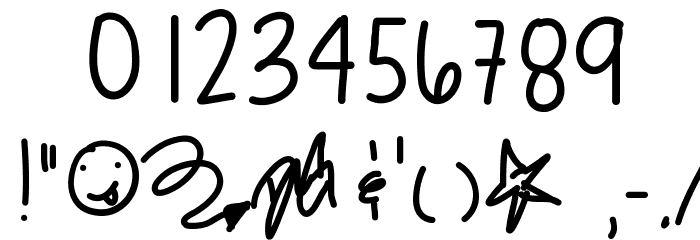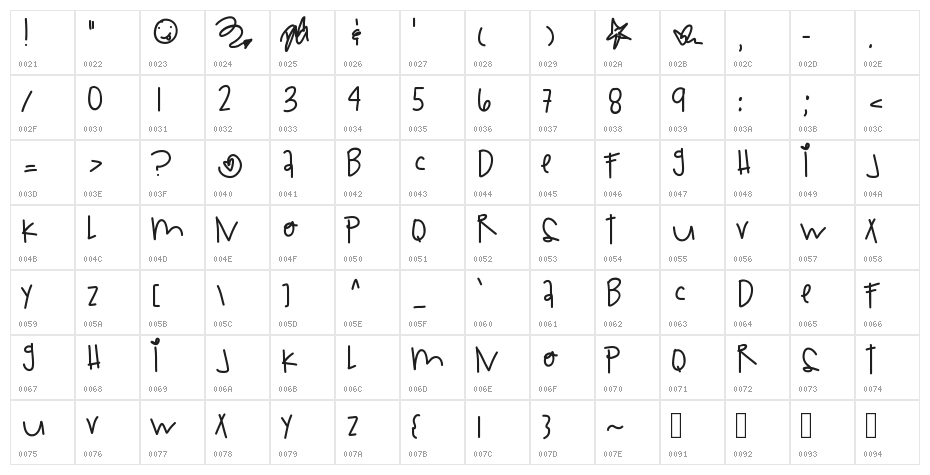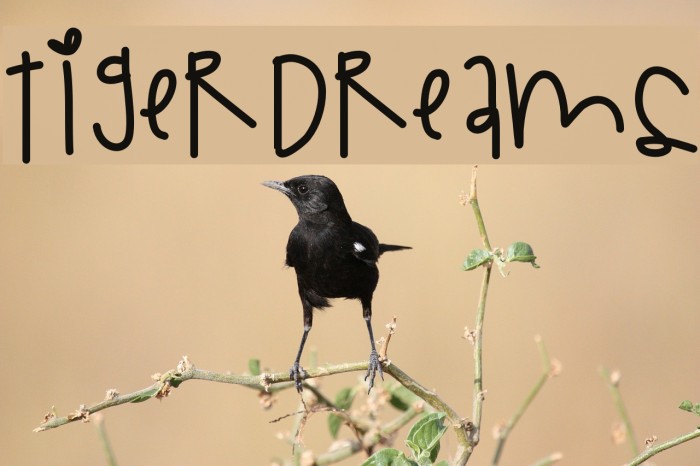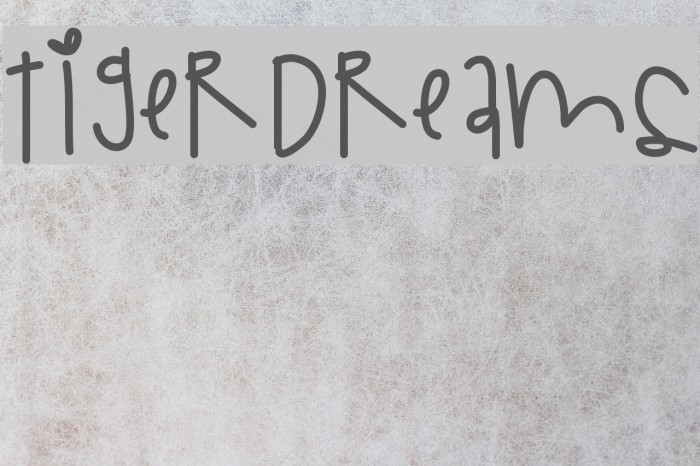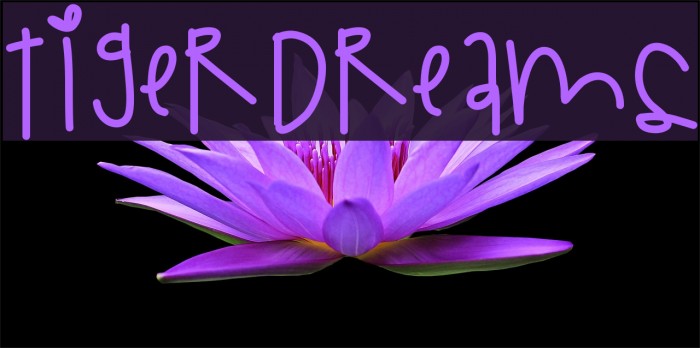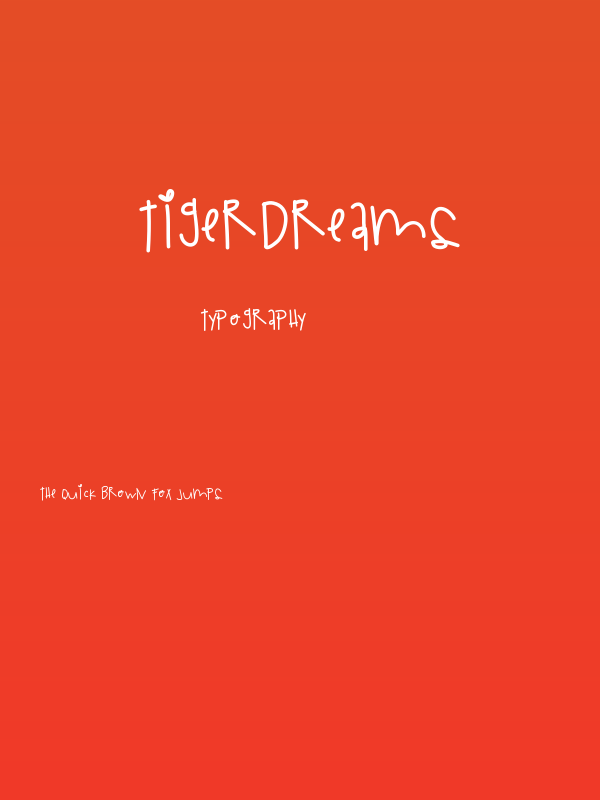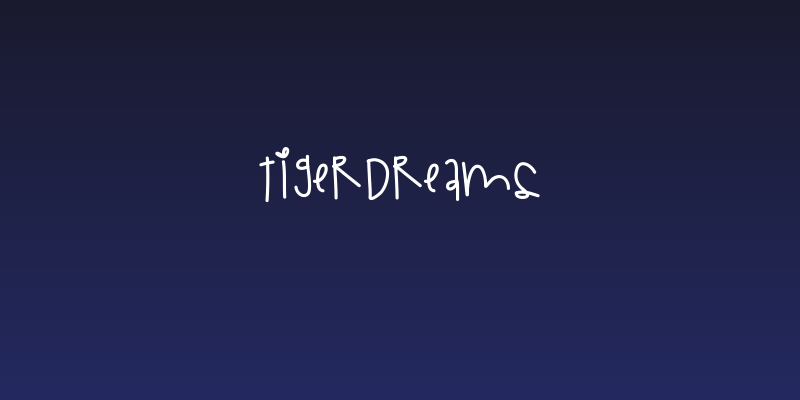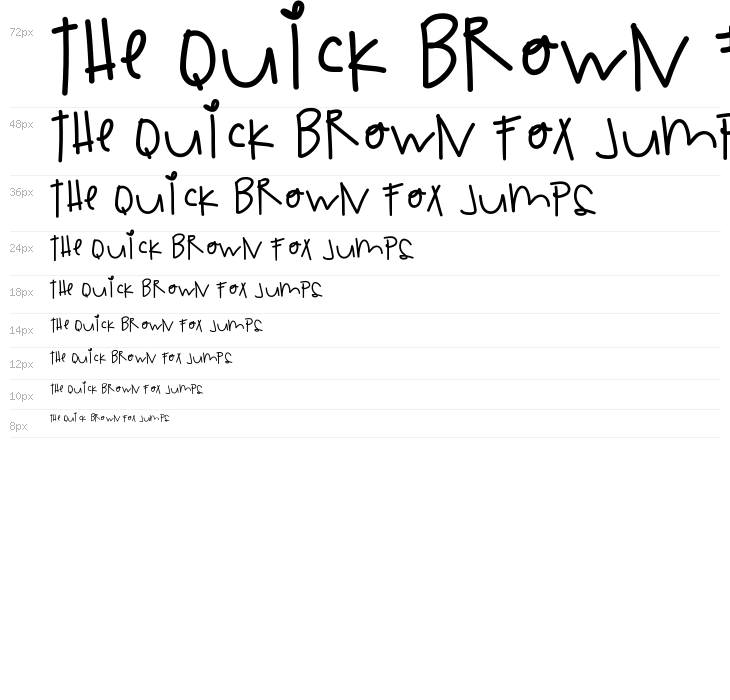
TigerDreams Font
TigerDreams Description
This playful and whimsical font features a handwritten style with a casual and friendly appearance. Each character is uniquely crafted with slight variations, adding to its charm and authenticity. The letters are slightly slanted, giving a dynamic and lively feel. The font includes delightful embellishments, such as small hearts on certain characters, enhancing its playful nature. The strokes are consistent in width, providing a uniform look across all characters. This font is perfect for projects that require a personal touch, such as greeting cards, children's books, or playful branding.